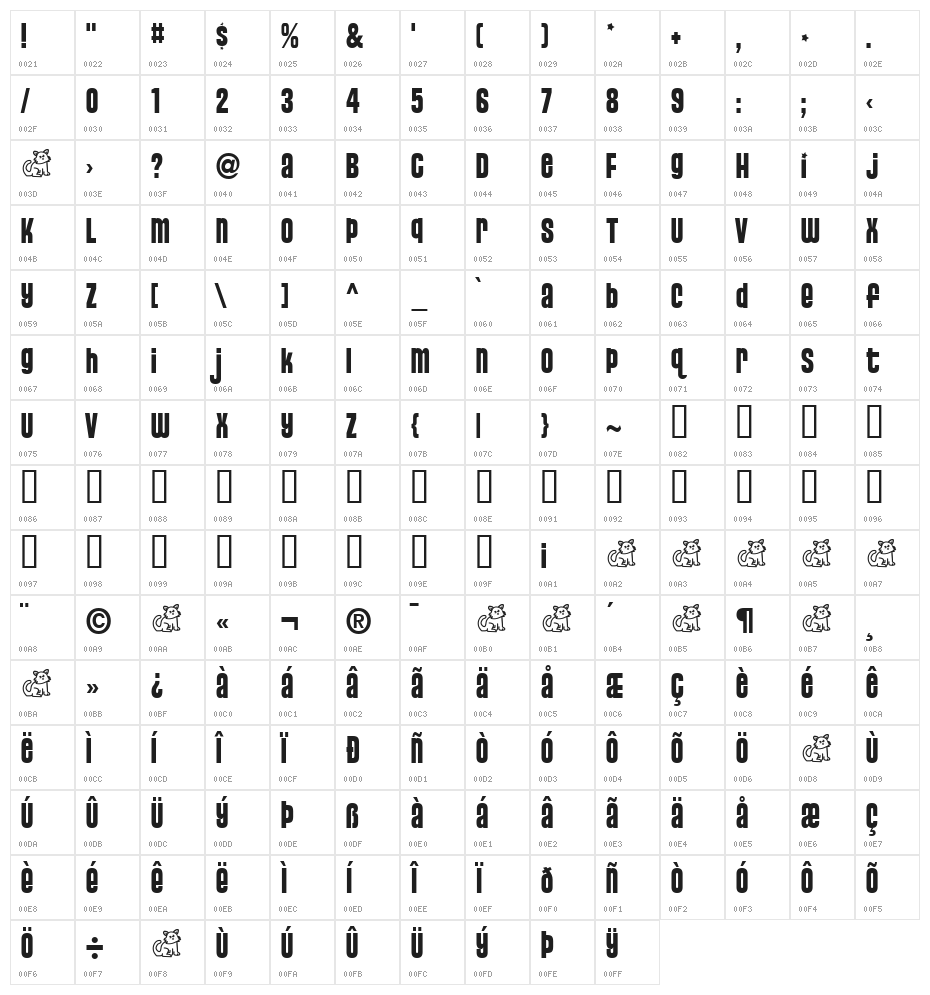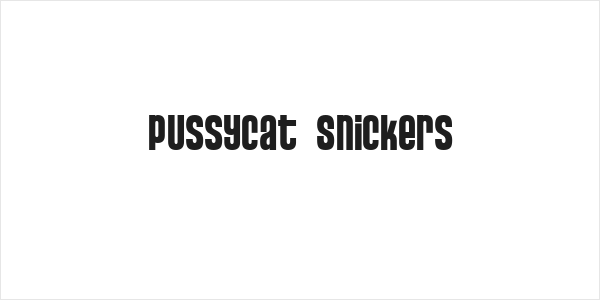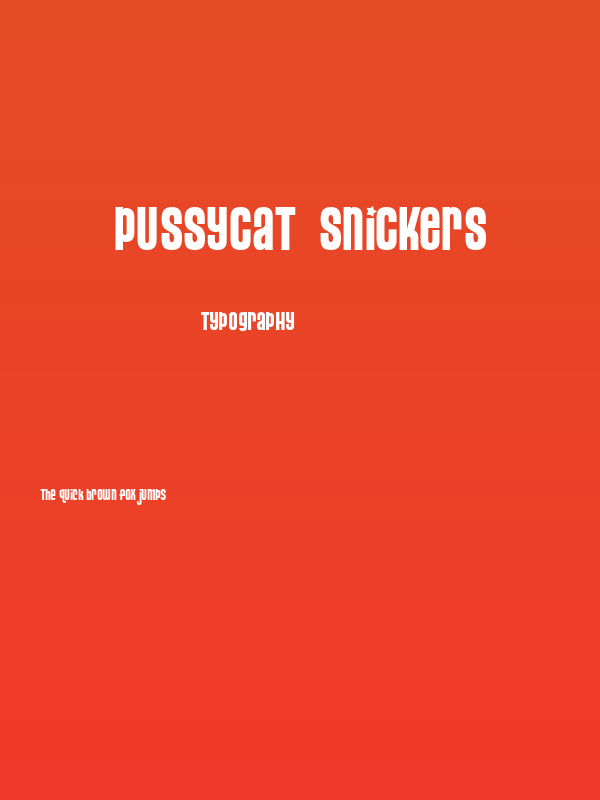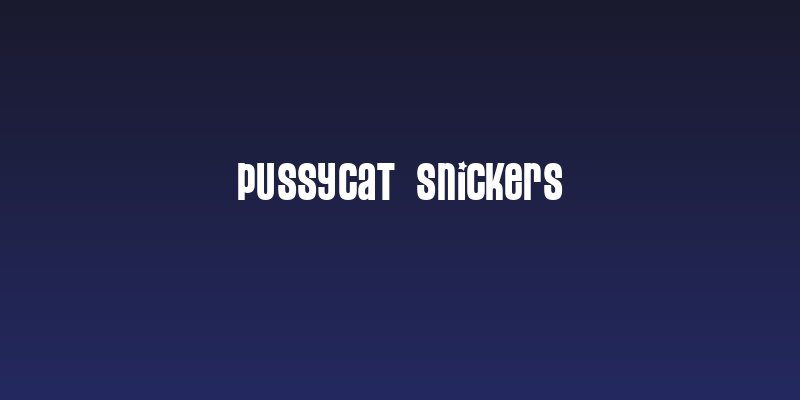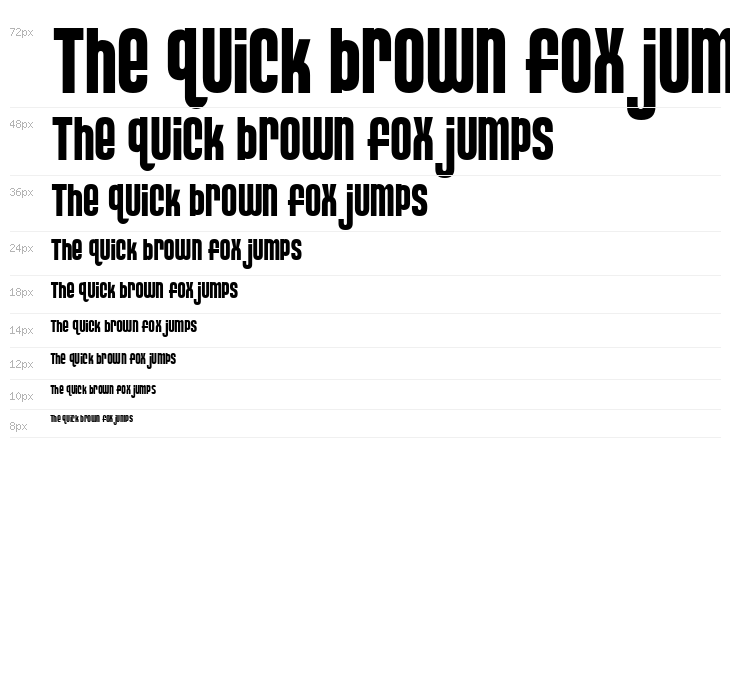
Pussycat Snickers Font
Pussycat Snickers Description
This font exhibits a bold and playful style, characterized by its thick, uniform strokes and slightly condensed letterforms. The uppercase and lowercase letters maintain a consistent width, creating a cohesive and structured appearance. The font includes unique elements such as a star integrated into the letter 'i', adding a whimsical touch. The numerals and special characters are designed to match the boldness of the alphabet, ensuring a harmonious look across all text. This font's strong presence makes it suitable for eye-catching designs.